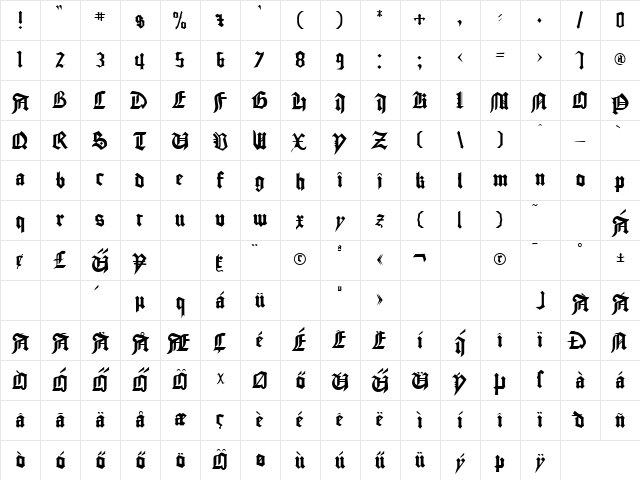
GoodCityModern-MedHU Normal Free Font
GoodCityModern-MedHU Normal
Design Context for GoodCityModern-MedHU
GoodCityModern-MedHU is a composed and adaptable typeface that performs quietly and consistently across a wide range of design contexts.